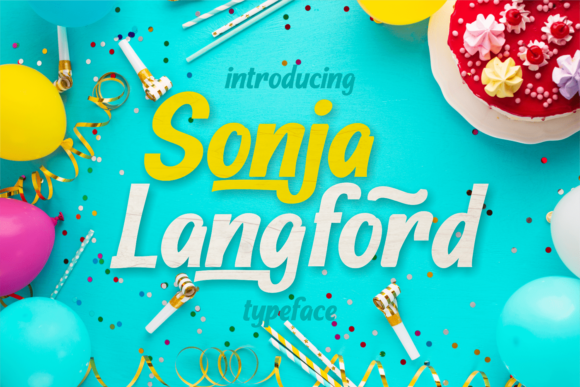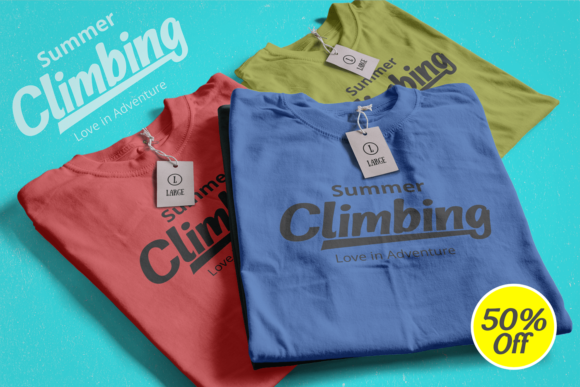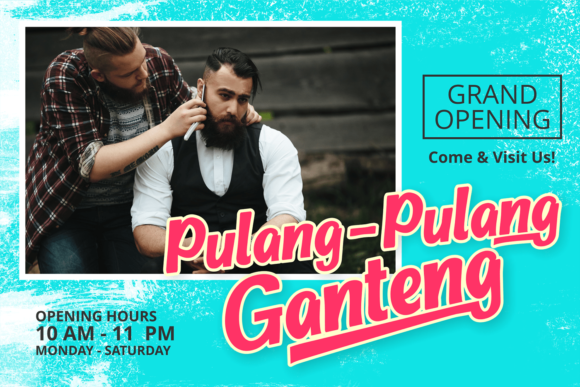
Sonja Longford Font
Sonja Longford is a cute and casual display font with an incredibly friendly feel. Whether you’re looking for fonts for Instagram or calligraphy scripts for DIY projects, this font will turn any creative idea into a true piece of art!